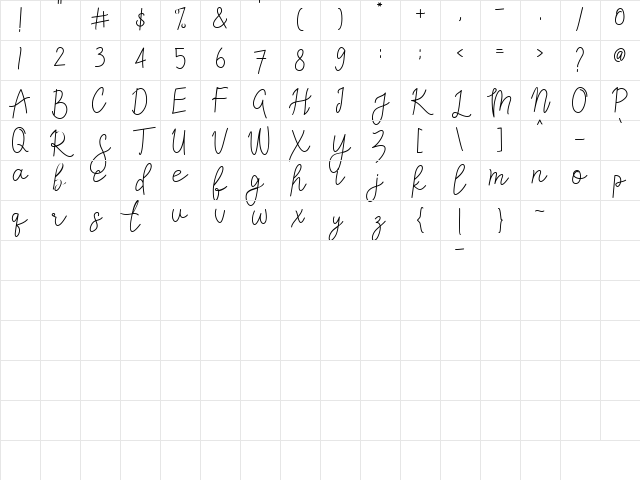
Valerine Regular
Designer: AEN Creative Studio 2019
Design Context for Valerine
Valerine is a composed and adaptable typeface that performs quietly and consistently across a wide range of design contexts.